On Handwriting and Memories
When I want to share something with someone these days, I send a quick email or a tweet. My time is often limited and my attention pulled in multiple directions so I’ve come to value the quickness and ease of communicating by digital means.
Yesterday though, my mom sent me a recipe hand-written by my grandmother who passed away some time ago. Even though she sent it by email, the minute I saw my grandmother’s handwriting a flood of memories came to me about her – her sizable collection of shells, the tiny Keds she wore, her love of a particular shade of green that pervaded the interior decor of her home and the game Boobytrap I used to play only at her house. All of that, from just her handwriting.
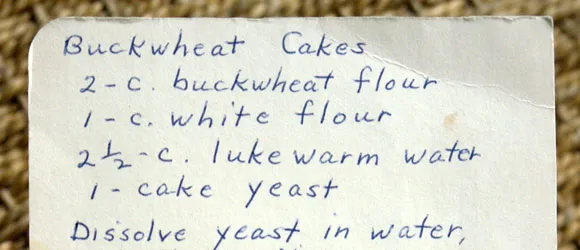
Her writing style was utilitarian and deliberate probably stemming from her days as an elementary school teacher. Certainly nothing remarkable. Those letterforms were uniquely her own though – a combination of her culture, how she learned to write, her personality, career, age and all the other aspects that create a person’s distinct hand.
In a world saturated with digital messages often conveyed by an assortment of repetitive and preselected typefaces, writing creates a direct link to the person and not just the content. Send out those tweets and status updates, but don’t neglect to write it down every now and then.